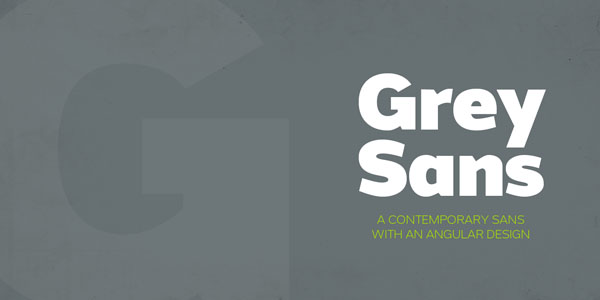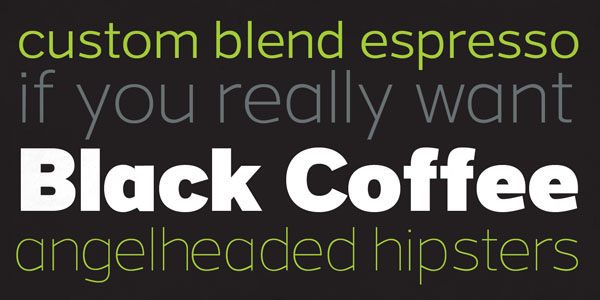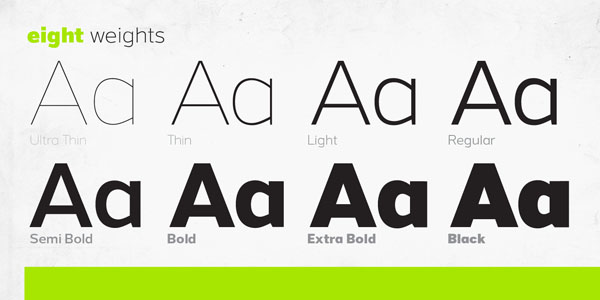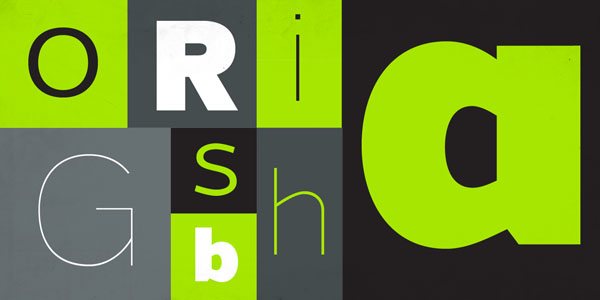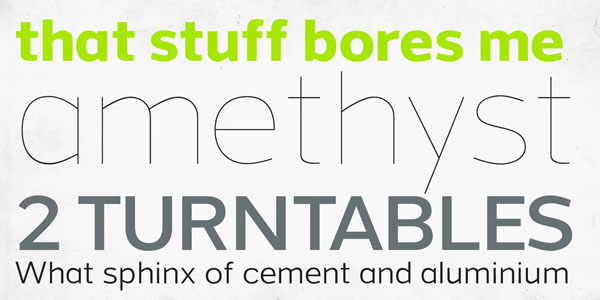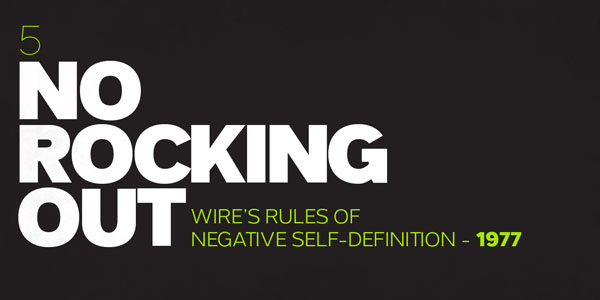
Grey Sans – Contemporary Type Family.
Grey Sans is a modern geometric sans serif font family designed in 2013 by Jason Vandenberg (Font Publisher: Greyscale Type). The type family consists of 7 weights from Grey Sans Ultra Thin to Grey Sans Black. Grey Sans is available as Web Font, TrueType (TTF) and OpenType (OTF).